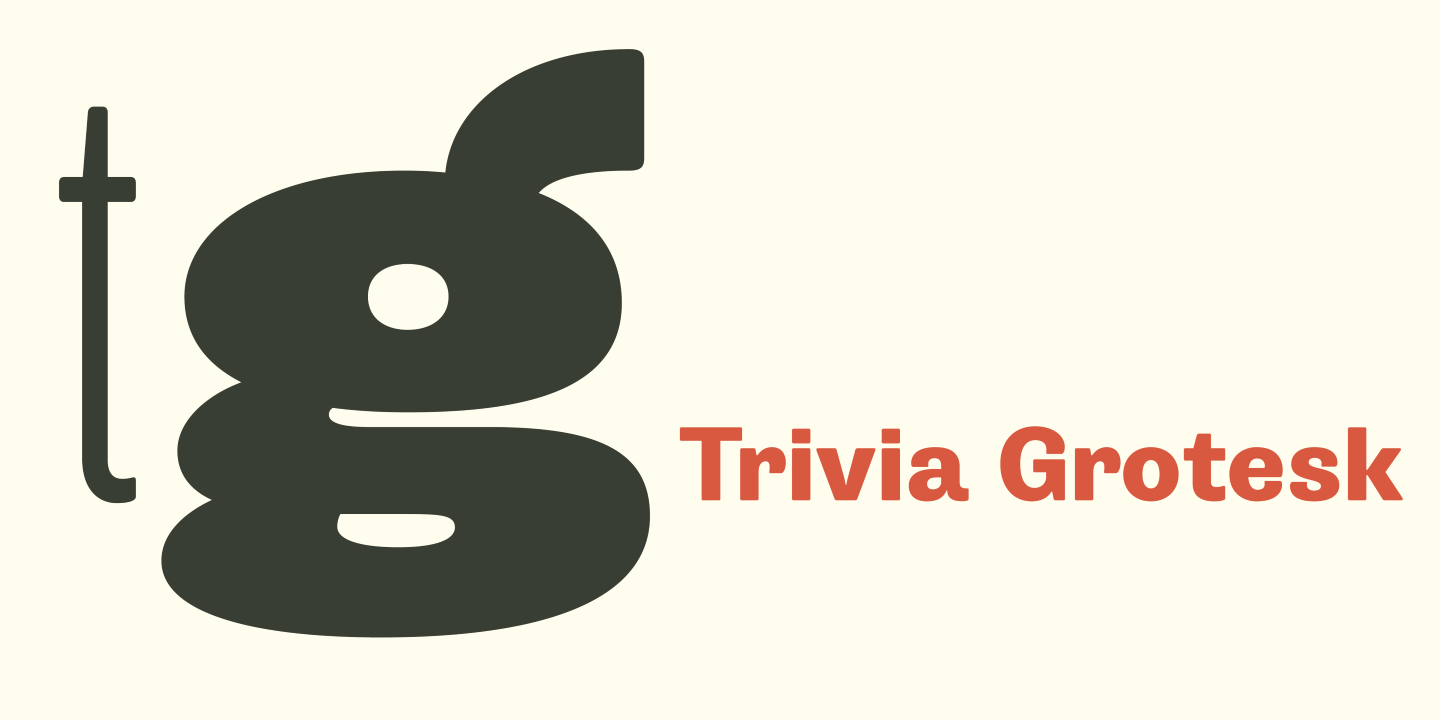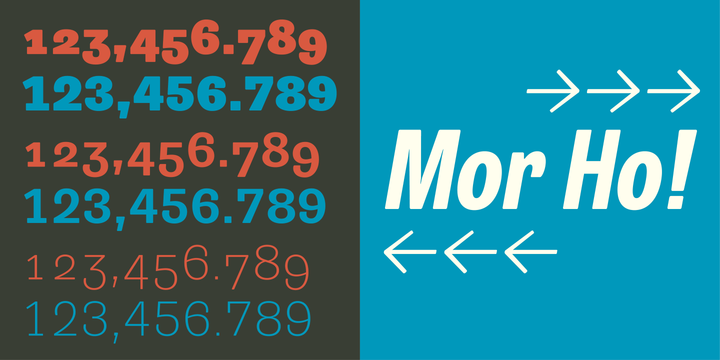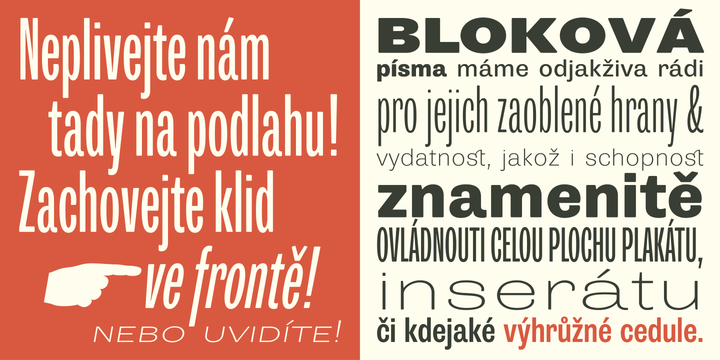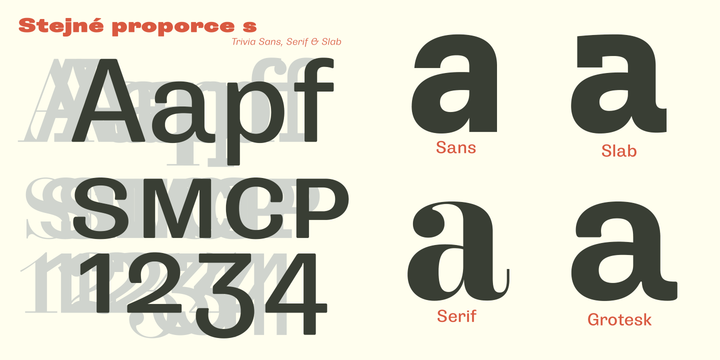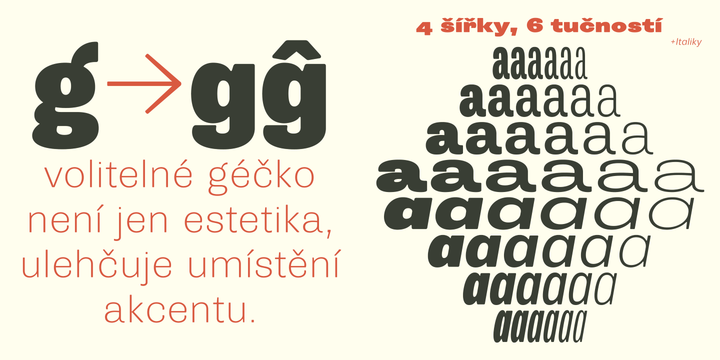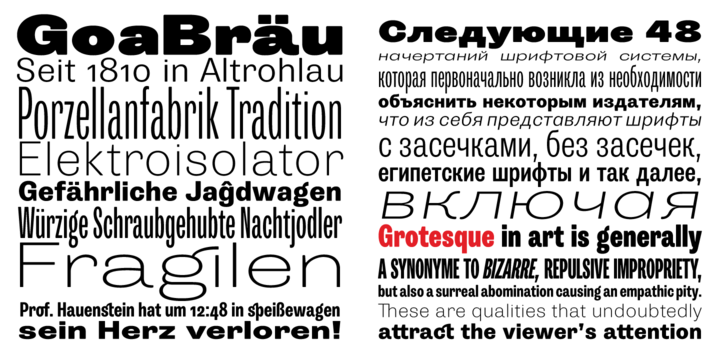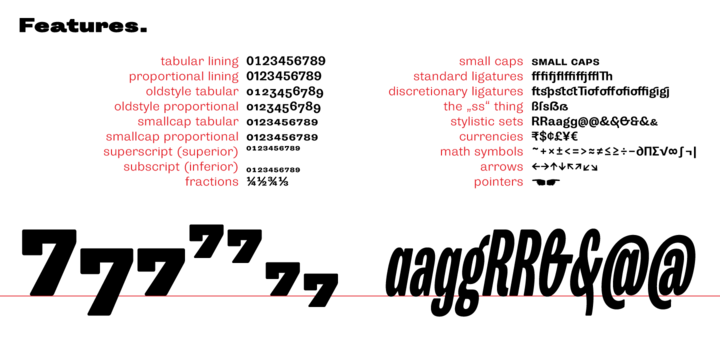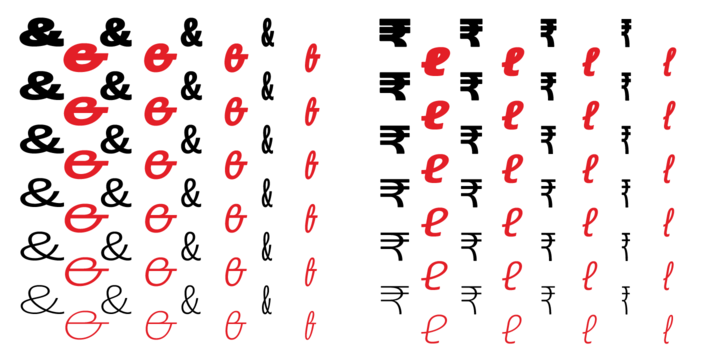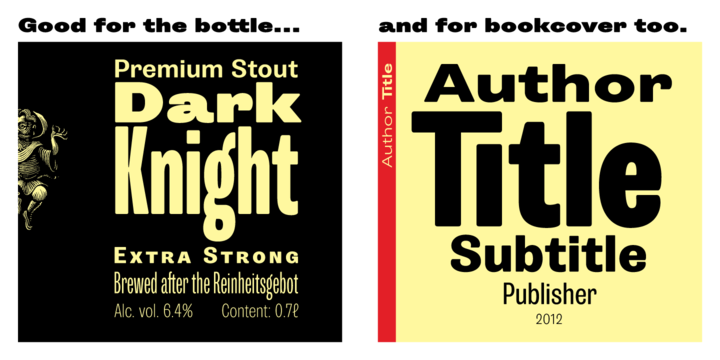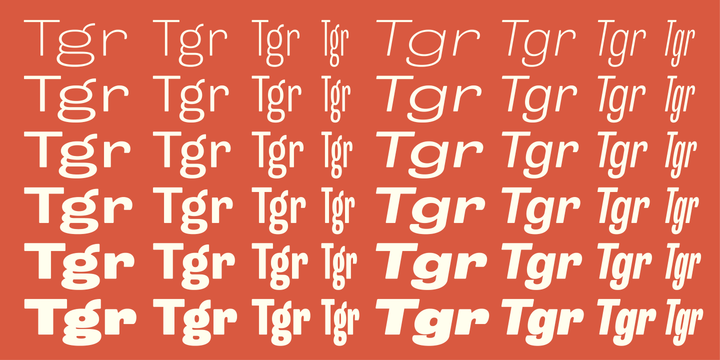
Trivia Grotesk Font Family
Another 48-cut family from a typeface system which originally arose from the need to simply explain to some publishers what it is “serif, sans-serif, egyptian”, etc. including their style variations. Over time, the Trivia became quite popular, which was her goal. Now is the opportunity to explain what it is “grotesque.” Grotesque in art is generally synonymous with bizarre, repulsive impropriety, but also surreal abomination exciting an empathic pity. These are qualities that undoubtedly attract the viewer’s attention since the days of Gothic gargoyles, stone gorgons and chimeras. Grotesque font is unlike the cold sans-serif much warmer, more appealing for the title, poster or advertisement, and is usually given in a variety of widths and weights. With our Trivia it shares basic proportions and OpenType features.